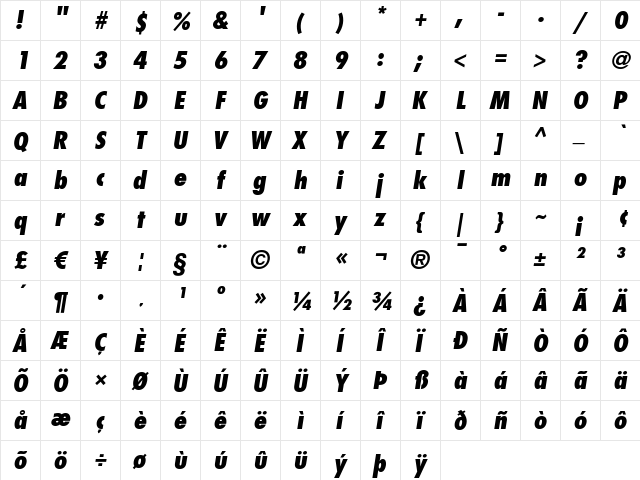
Futura LT CondExtraBoldObl Font Preview
Design Context for Futura LT Typeface
Futura LT channels digital-age aesthetics through its sharp, structured letterforms — ideal for brands that want to signal innovation. The heavy weight commands attention and anchors typographic hierarchies. The condensed width makes it efficient for tight spaces without sacrificing legibility.
Pro Tip: Try Futura LT with generous letter-spacing in UI labels and navigation — the geometric forms benefit from room to breathe.